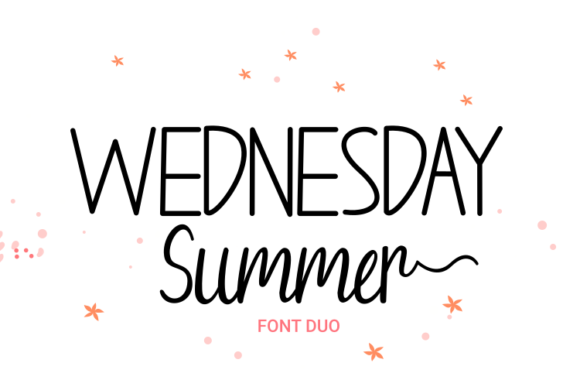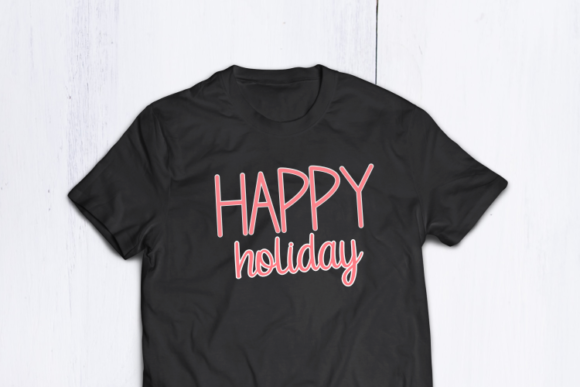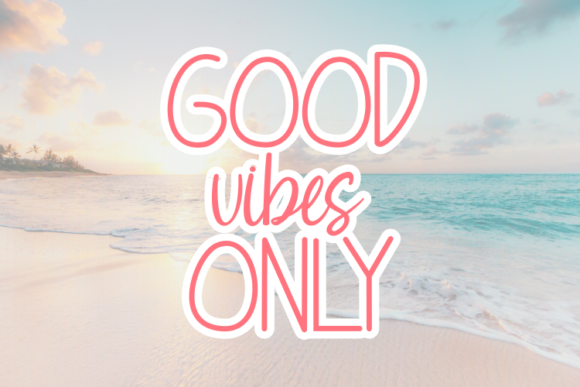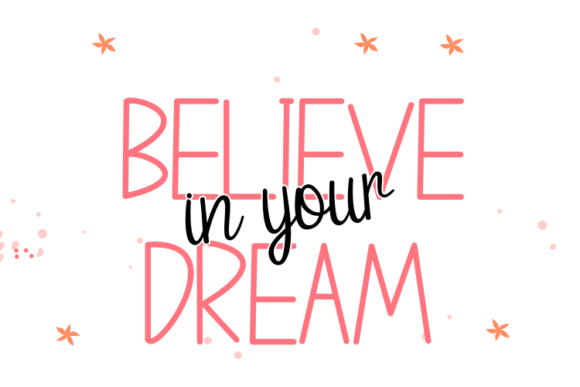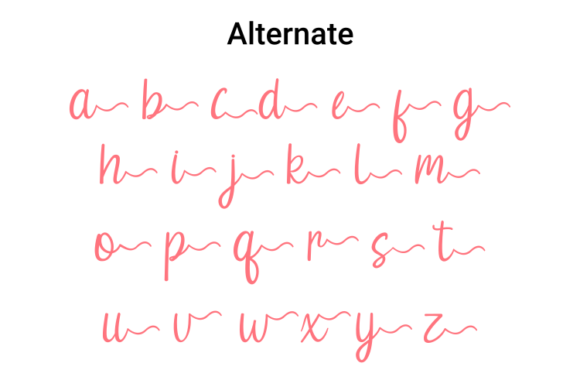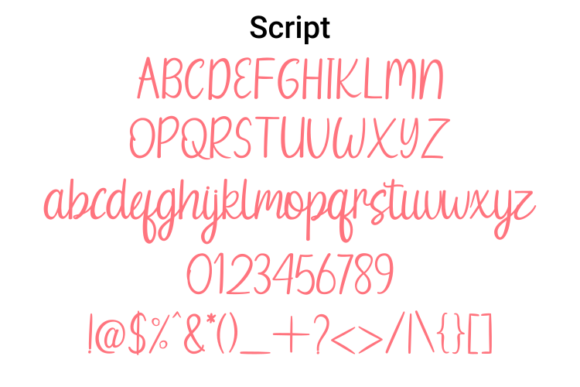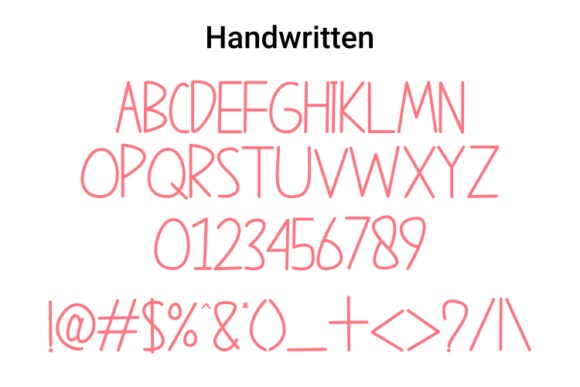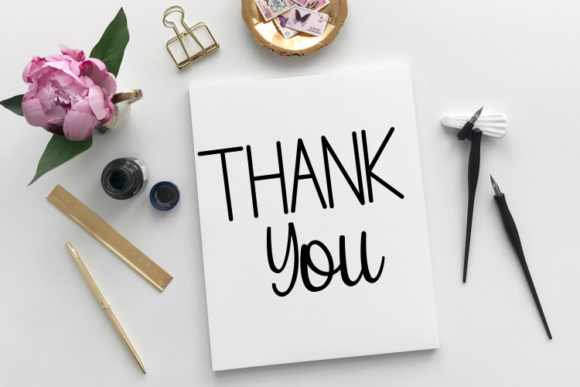
Wednesday Summer Font
About Wednesday Summer Font
Wednesday Summer is a spectacular duo font (sans serif and script). Incredibly versatile, this font fits a wide pool of designs, elevating them to the highest levels. Add this font to your favorite creative ideas and notice how it makes them come alive!